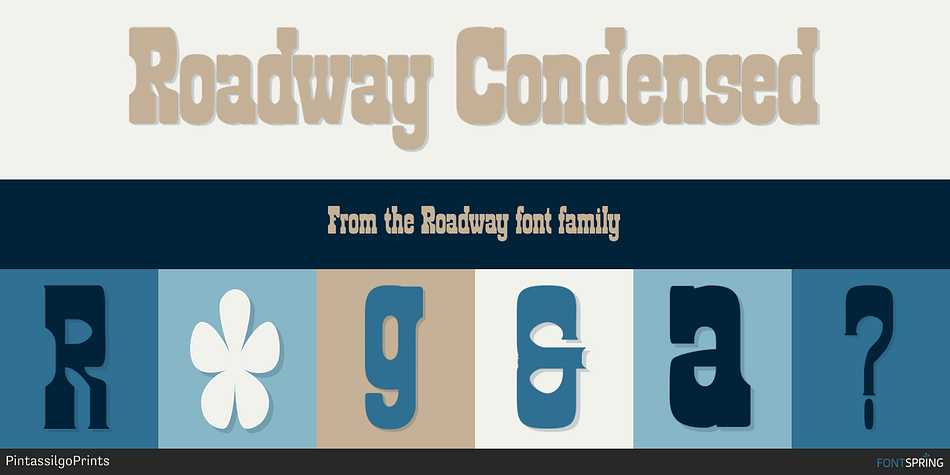
Roadway Condensed
Roadway is a novelty, western and wood type font family. This typeface has three styles and was published by PintassilgoPrints.
Roadway is an original typeface with an antique accent, inspired by Clarendon woodtypes from late 19th century.
Roadway is an original typeface with an antique accent, inspired by Clarendon woodtypes from late 19th century. It comes in three matching varieties, with extended character sets and a lot of personality.